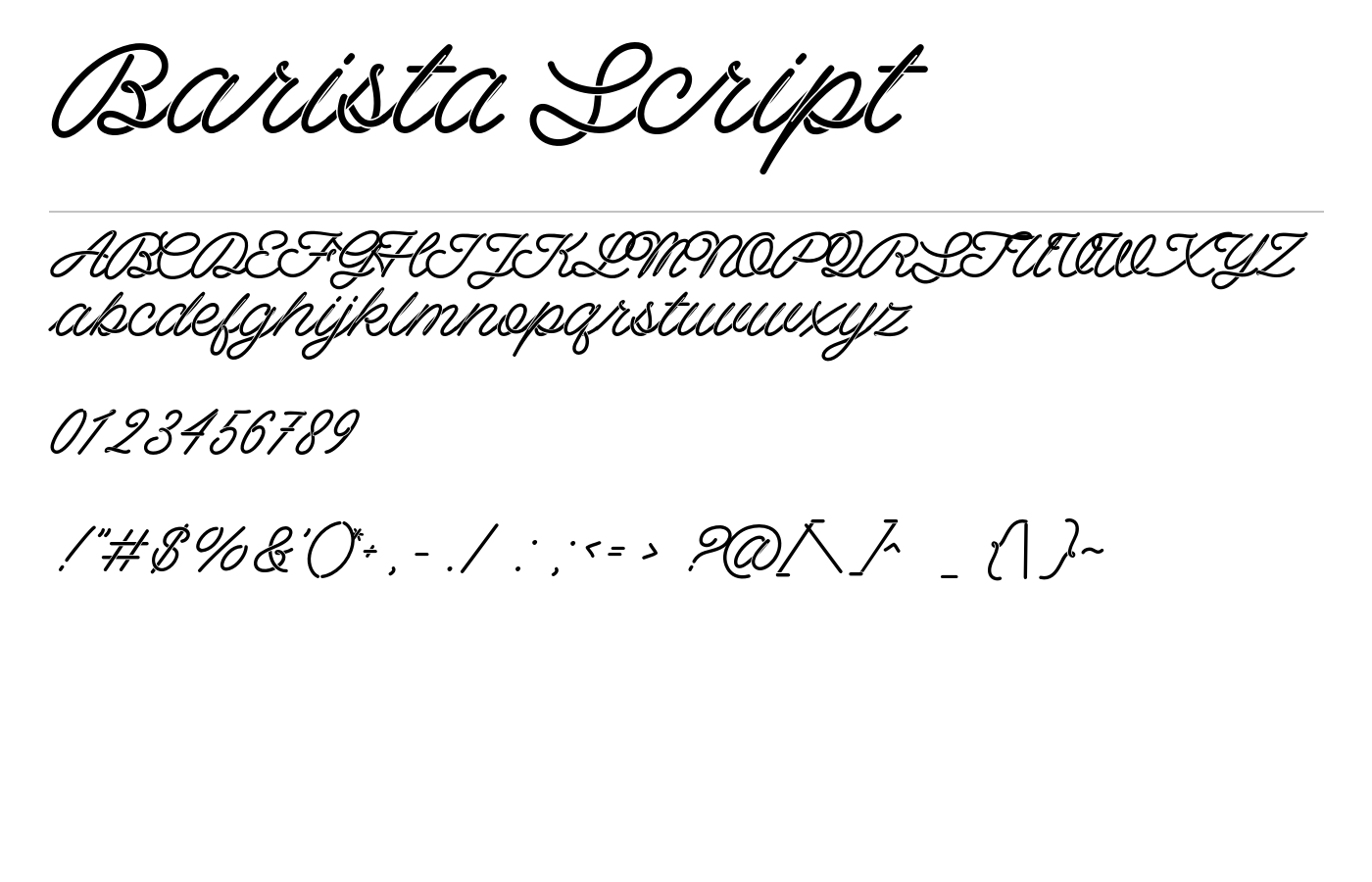
Barista is a delicate and elegant handwritten script font with a light weight and narrow width, featuring smooth, flowing strokes that give it a natural, personal touch. Its slender, slightly slanted letterforms and unique character shapes make it ideal for stylish branding, invitations, and creative projects that require a warm, approachable feel. This font works beautifully for headlines, logos, and packaging, adding a subtle charm without overwhelming the design.
| Font family | barista Font |
| Designer | Cut Story / Ramadhana |